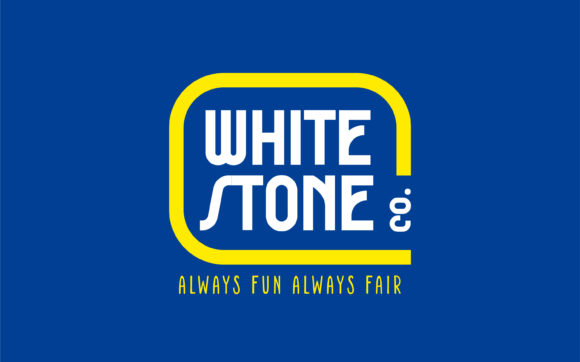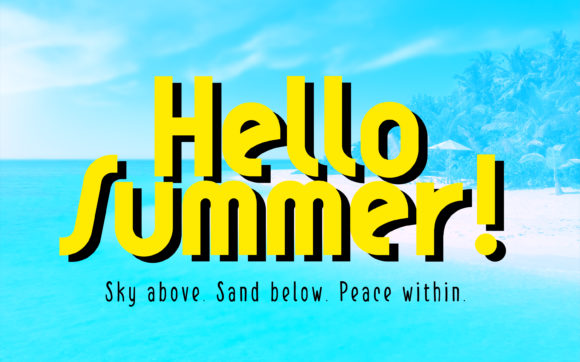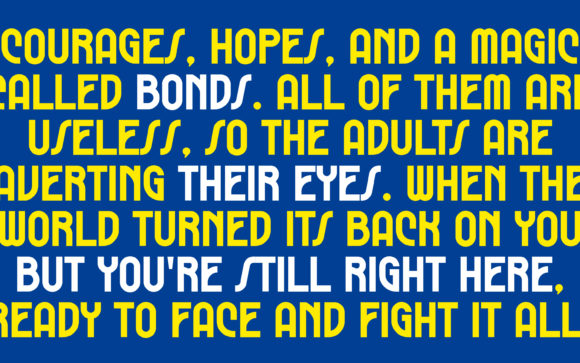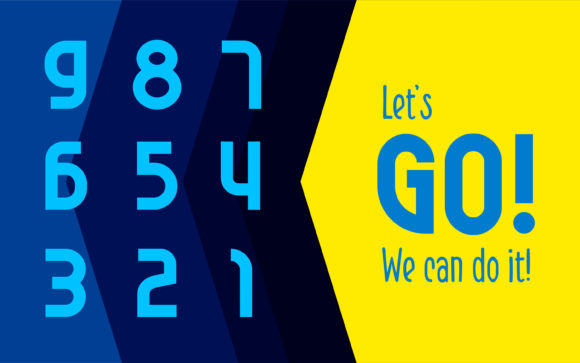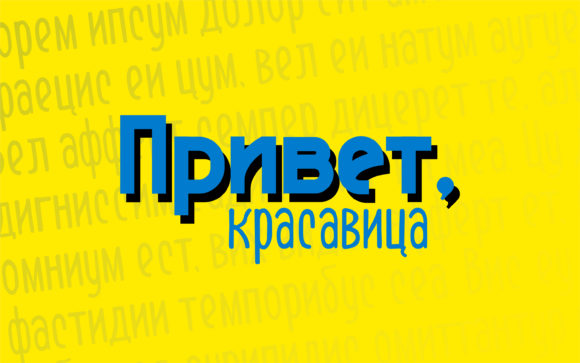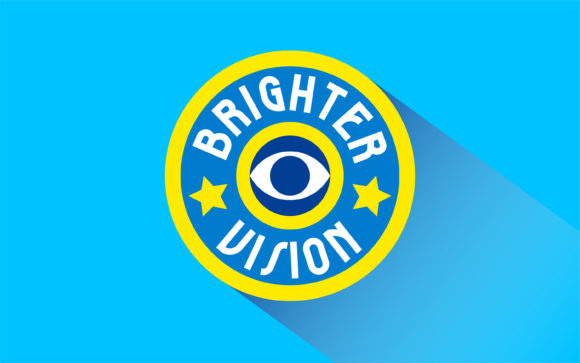
Ferlix Font: Elevate Your Designs with a Stunning Duo
Are you on the hunt for a font that can add a touch of elegance and friendliness to your projects? Look no further than Ferlix Font, a comprehensive duo that combines a beautiful script and display font. This versatile font is perfect for designers and crafters who want to give their work a branded yet approachable feel.
What is Ferlix Font?
Ferlix Font is a carefully crafted duo that consists of two distinct styles: a script font and a display font. These two styles are designed to work together in harmony, allowing you to create stunning visual effects that elevate your designs. However, they are also beautiful on their own, making them perfect for a wide range of applications.
Key Features of Ferlix Font
- Comprehensive Duo: Ferlix Font includes two font styles that can be used together or separately, offering flexibility and versatility.
- Script and Display: The duo features a beautiful script font and a bold display font, perfect for headlines, titles, and body text.
- Branded yet Friendly: Ferlix Font is designed to give your projects a branded feel without sacrificing friendliness, making it perfect for a wide range of applications.
- Elegant and Versatile: The font is elegant, versatile, and works well for various design projects, from logos and branding to packaging and advertising.
Why Choose Ferlix Font?
With so many fonts available, why choose Ferlix Font? Here are just a few reasons why designers and crafters love this stunning duo:
- Unique and Eye-catching: Ferlix Font is a unique and eye-catching duo that will make your designs stand out from the crowd.
- High-quality Design: The font is carefully crafted with attention to detail, ensuring a high-quality design that looks professional and polished.
- Easy to Use: Ferlix Font is easy to use and works seamlessly with most design software, making it perfect for designers of all levels.
- Time-saving: With Ferlix Font, you can save time and effort by using a single font duo that can be used across multiple projects.
How to Use Ferlix Font
Using Ferlix Font is easy! Here are a few tips to get you started:
- Pair the Script and Display: Combine the script and display fonts to create stunning visual effects that elevate your designs.
- Use as a Standalone: Use the script or display font on its own for a beautiful and elegant look.
- Play with Sizes: Experiment with different font sizes to create visual hierarchy and emphasize important information.
Ferlix Font is perfect for designers and crafters who want to add a touch of elegance and friendliness to their projects. Whether you’re working on a logo, branding, packaging, or advertising, this stunning duo has got you covered.
- Graphic Designers: Use Ferlix Font to create stunning visual effects and elevate your designs.
- Crafters: Add a touch of elegance and friendliness to your craft projects, from card making to scrapbooking.
- Small Business Owners: Use Ferlix Font to create a professional and polished brand identity.
| Font Name | Ferlix Font |
| Author | jellafornie |
In conclusion, Ferlix Font is a stunning and comprehensive duo that is perfect for designers and crafters who want to add a touch of elegance and friendliness to their projects. With its versatility, high-quality design, and ease of use, this font duo is a must-have for anyone looking to elevate their designs.